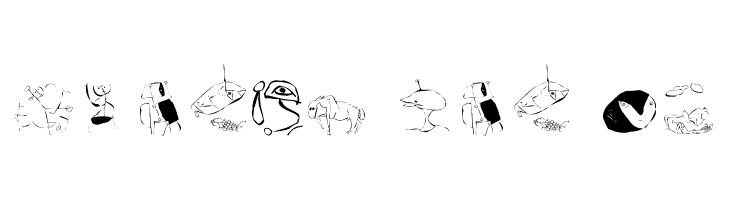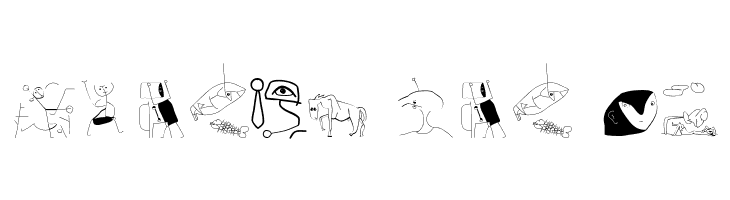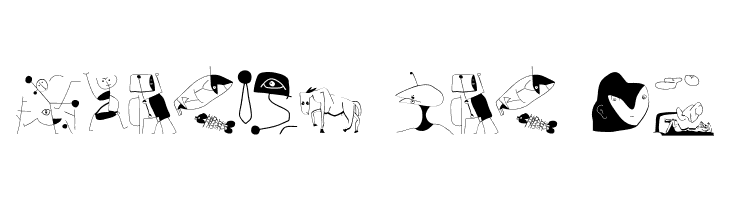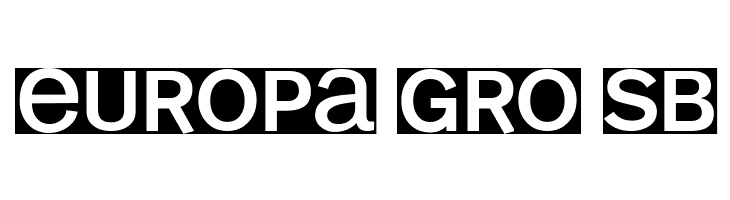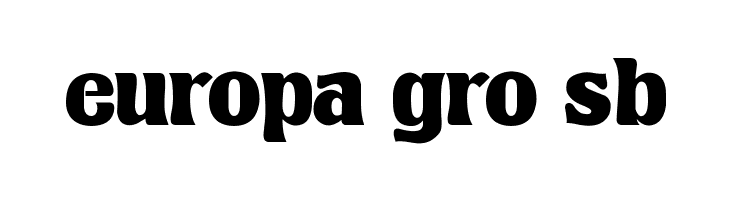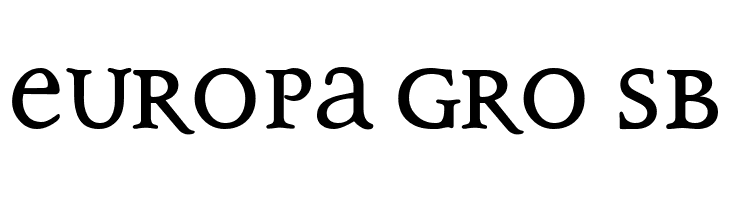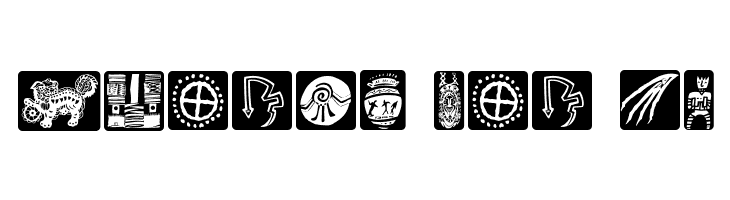
• KinderUndAndereEngel
Whimsical silhouette illustrations of children, angels, and animals.
• Kingthings Organica
A bold, playful font with a whimsical, hand-drawn style.
• KL1_ Monocase Serif
A classic serif font with a modern touch, featuring elegant curves and flared serifs.
• KL1MonoSansInvers
A bold, geometric sans-serif font with a monospaced appearance.
• KLabyrinths
An ornamental display font with each character depicted as a unique labyrinth or maze.
• KLArtIFacts
A pictorial, artifact-inspired decorative font with unique glyphs for each character.
• Klats
Abstract, ornamental symbol font with geometric and organic motifs.
• Kleerikale
An abstract, artistic font with whimsical, illustrative characters.
• KleerikaleConBlack
An artistic and abstract font with unique illustrations for each character.
• KleeriKaleRRound
An artistic and whimsical decorative font with abstract character designs.